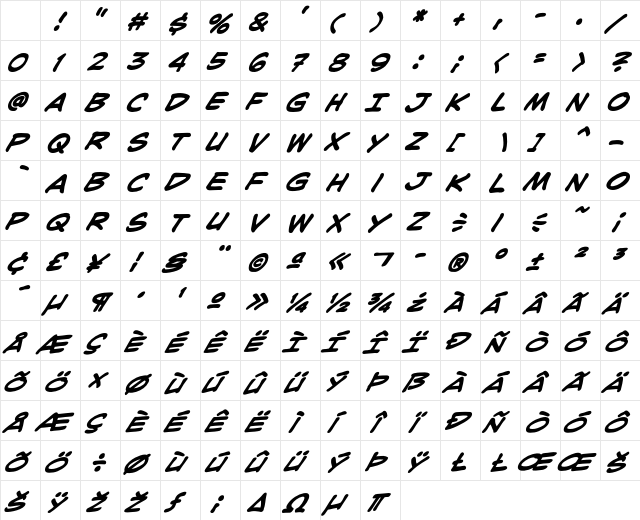
Complete CCJoeKubert Bold Italic glyph index. Displaying only characters natively supported by CCJoeKubert Bold Italic font.
CCJoeKubert is a composed and adaptable typeface that performs quietly and consistently across a wide range of design contexts. The slanted form adds forward momentum and visual energy. Its bold stroke weight gives it real presence on the page.
Pro Tip: Use CCJoeKubert for emphasis, pull quotes, and subheadings where its slanted energy can add rhythm to the layout.